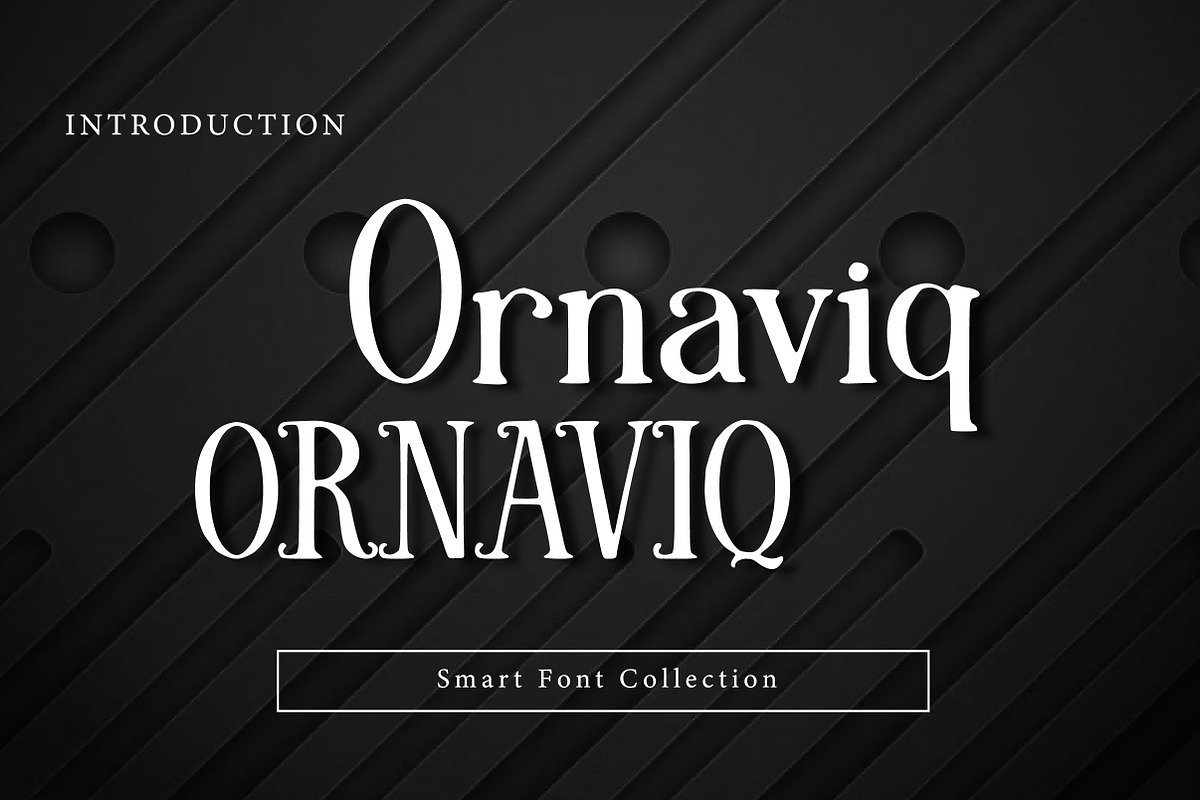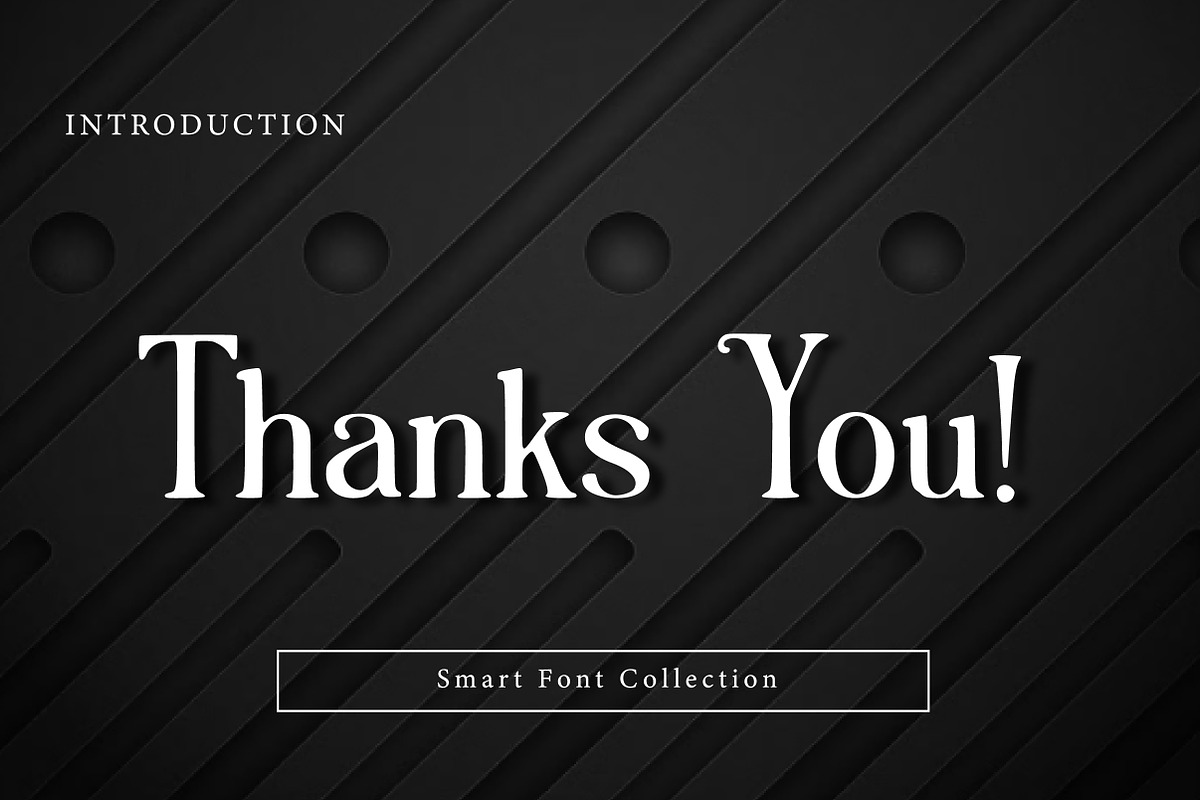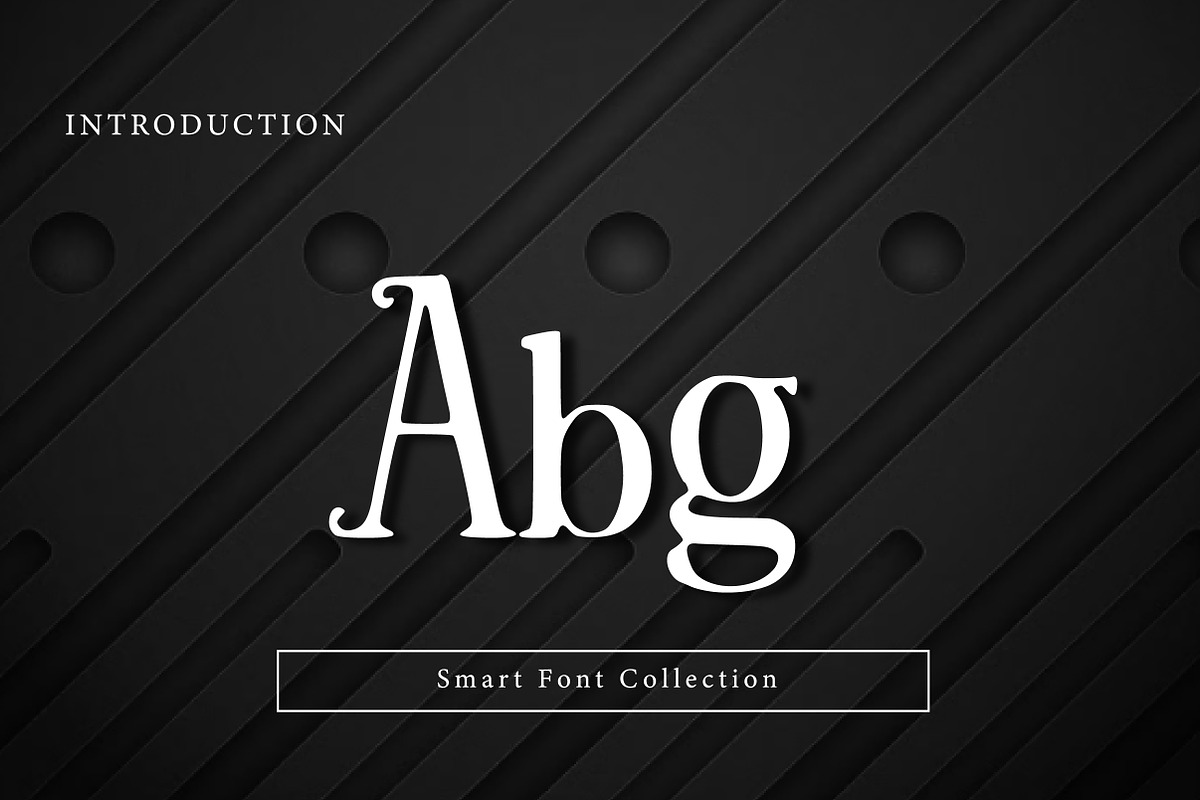
Ornaviq
Ornaviq is an elegant and decorative serif display font crafted to bring a premium, stylish, and artistic feel to your typography. With its refined curves, classic serif structure, and ornamental personality, this typeface is perfect for creating sophisticated designs that feel luxurious and timeless.
Designed to stand out in headlines and branding, Ornaviq offers a beautiful balance between elegance and uniqueness. Its graceful letterforms make it ideal for luxury logos, fashion branding, boutique packaging, editorial headlines, wedding invitations, and premium product design. The font carries a classy aesthetic while still maintaining strong readability—making it perfect for both print and digital projects.
Whether you're designing for a high-end fashion label, a beauty product, an elegant magazine cover, or a luxury brand identity, Ornaviq adds a stylish signature look that feels bold, refined, and memorable. This font is especially effective when used in large sizes, where its decorative serif details can shine and elevate your typography instantly.